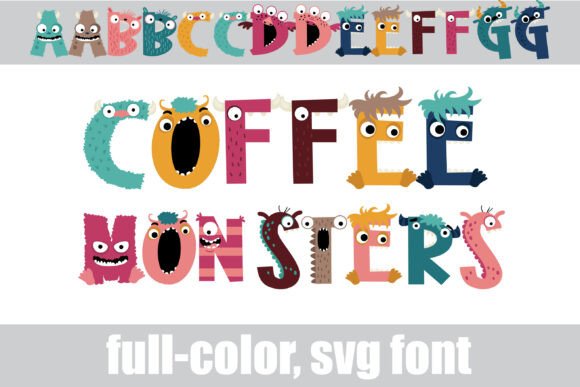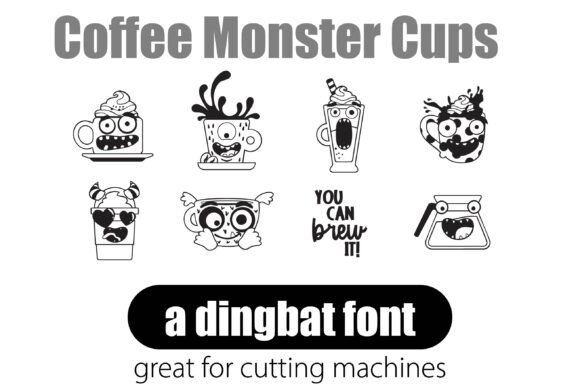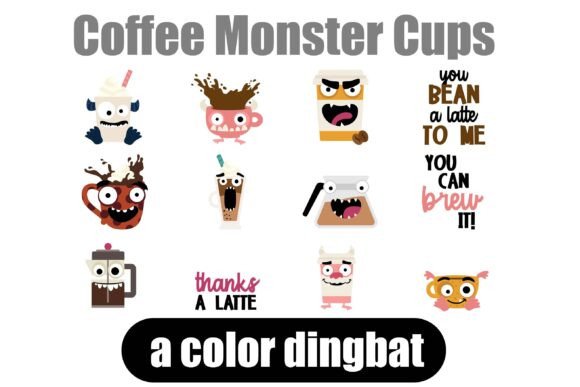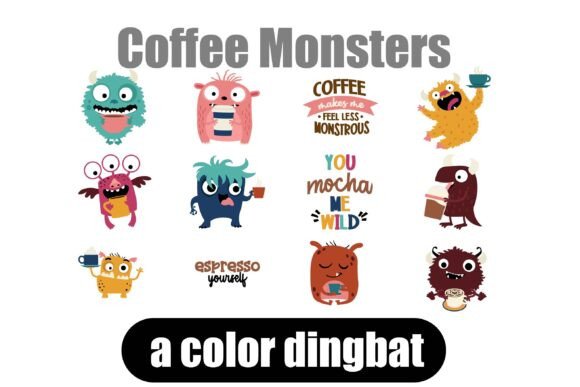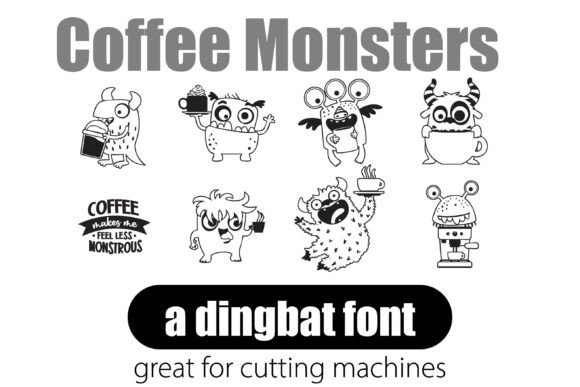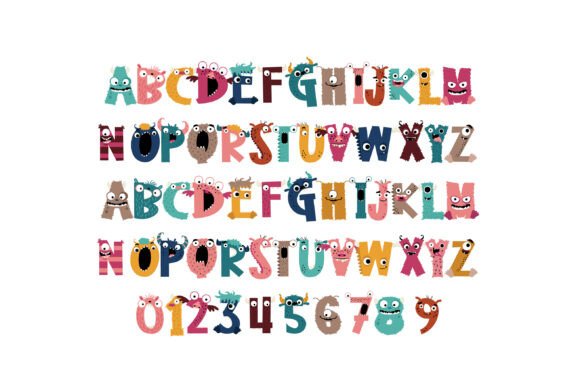
Coffee Monsters Font: A Fun and Colorful Addition to Your Design Arsenal
Are you a designer or crafter looking for a unique and playful font to add some personality to your projects? Look no further than the Coffee Monsters Font bundle! This delightful collection features brightly-colored coffee-loving monsters and mugs that are sure to bring a smile to your customers’ faces. In this article, we’ll take a closer look at what makes this font bundle so special and how you can make the most of its features.
What’s Included in the Coffee Monsters Font Bundle?
The Coffee Monsters Font bundle is a comprehensive collection of fun and colorful design elements. Here’s what you can expect:
- 1 full-color font featuring coffee-loving monsters and mugs
- An alt case of additional colors for each letter, accessible through your system or Silhouette’s glyph map
- 2 full-color dingbats to add extra visual interest to your designs
- 2 regular dingbats for more traditional design applications
The Benefits of Full-Color SVG Fonts
Full-color SVG fonts offer a range of benefits for designers and crafters. For one, they provide an easy way to add a touch of personality to your designs, making them more engaging and attention-grabbing. Additionally, they offer a level of versatility, allowing you to experiment with different colors and effects to achieve the desired look.
Tips for Using the Coffee Monsters Font Bundle
Here are a few tips to help you get the most out of the Coffee Monsters Font bundle:
- Experiment with different colors and combinations to create unique designs
- Use the full-color dingbats to add visual interest to your projects
- Pair the Coffee Monsters Font with other fun and playful fonts for a bold look
- Consider using the font for coffee-themed projects, such as branding, packaging, or promotional materials
The Coffee Monsters Font bundle is a fun and colorful addition to any design arsenal. With its unique blend of coffee-loving monsters and mugs, it’s the perfect way to add some personality to your projects. Whether you’re a designer, crafter, or simply a coffee lover, this font bundle is sure to delight. So why not give it a try and see what creative possibilities unfold?